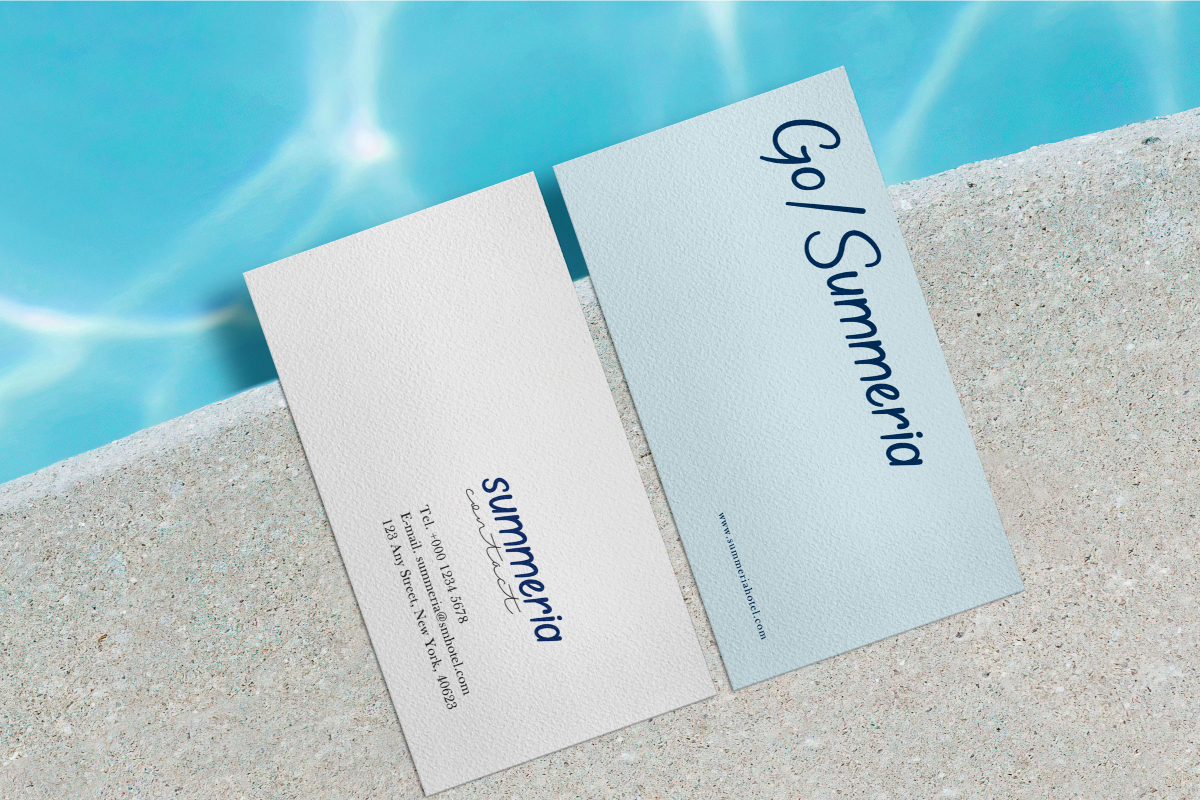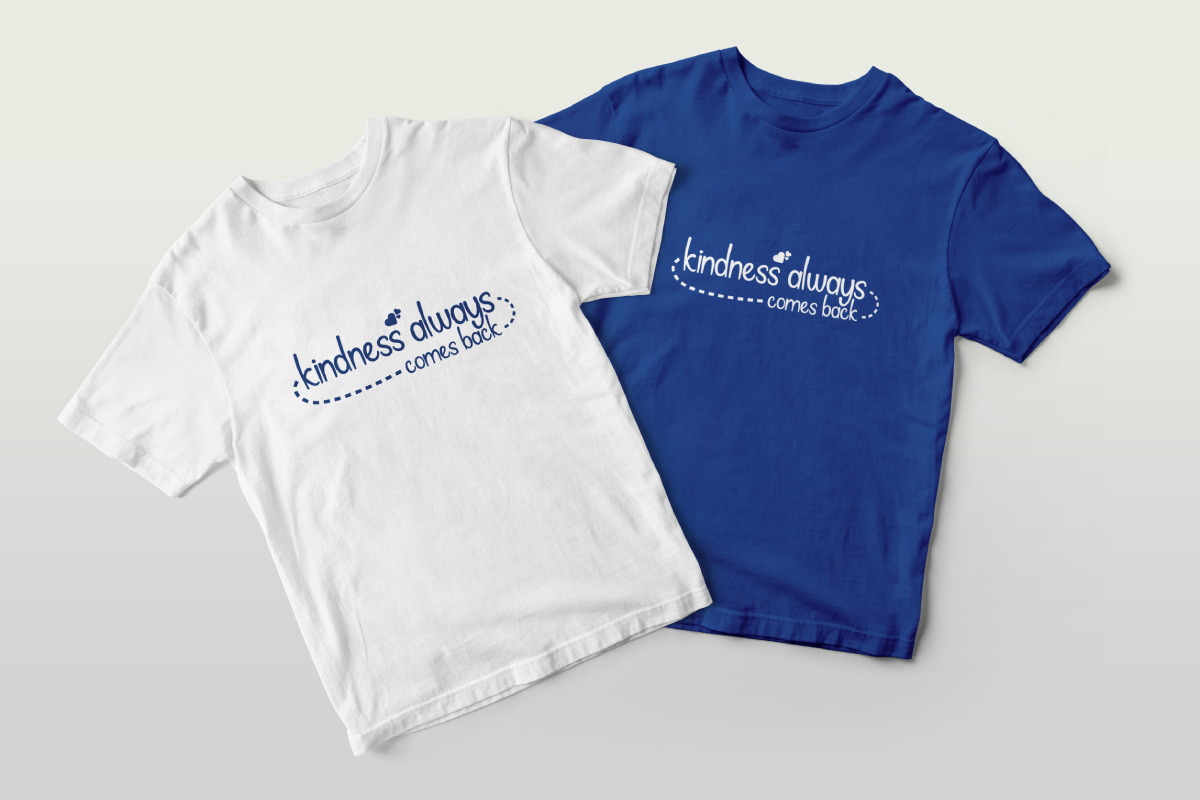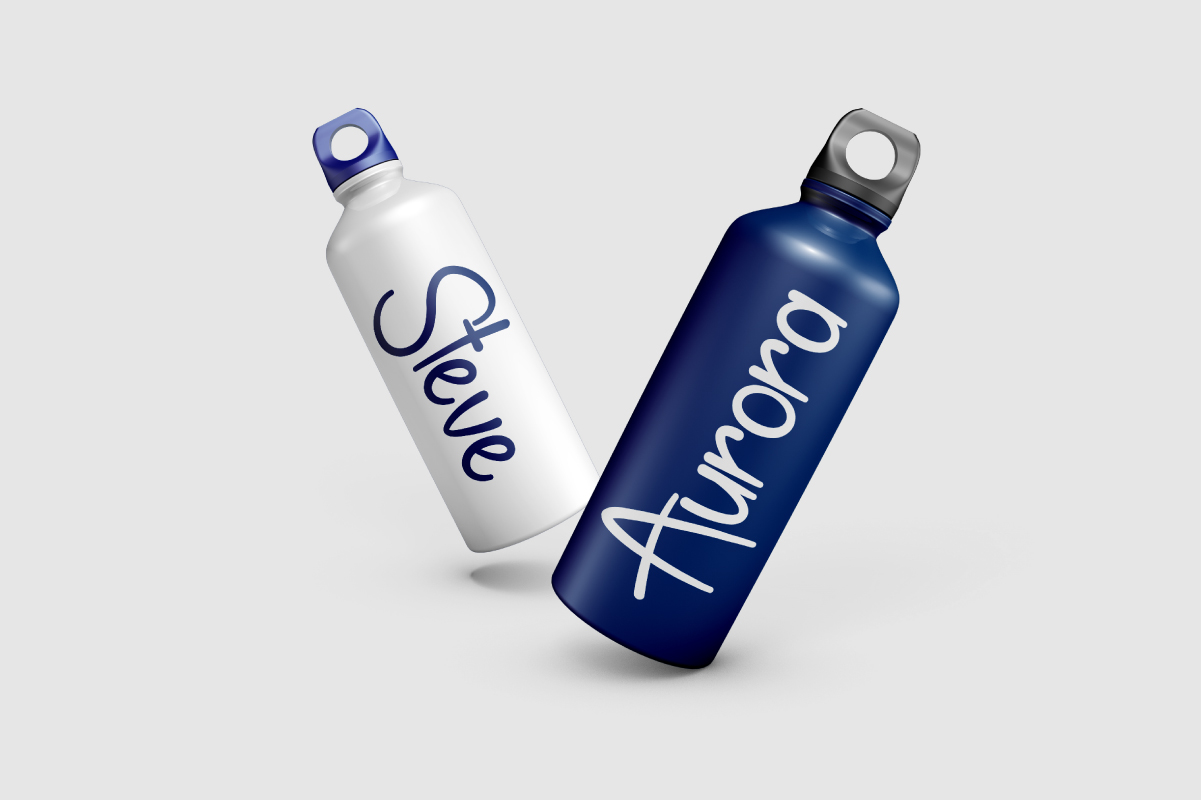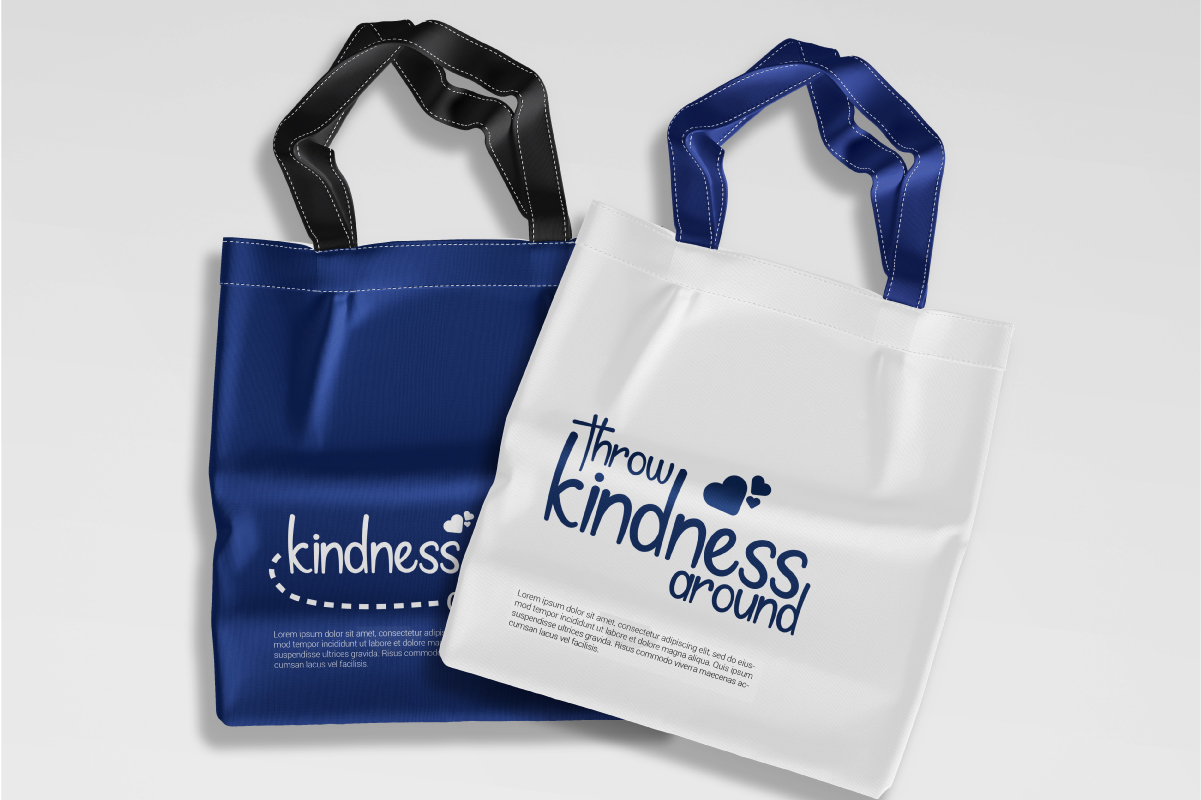
My Note Font
My Note Handwriting Font
This font will be awesome for many projects (some require extended license) including : branding, logo, stationery, business card, signage, flyer, brochure etc. The font was made in Indonesia 2021 by Our Font Designer : Shalsa and Sarah. The theme style of the font is casual, elegant, handmade and monoline style. The font will be match for this typeface: products, events, real estate, architect, florist, makeup artist, travel, musician etc